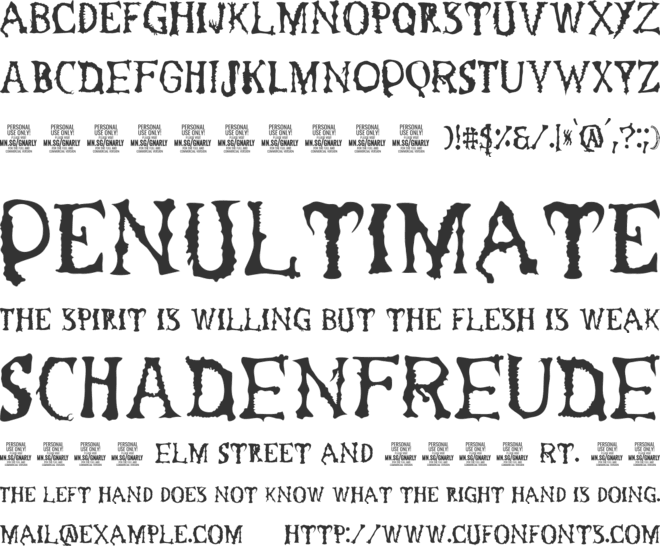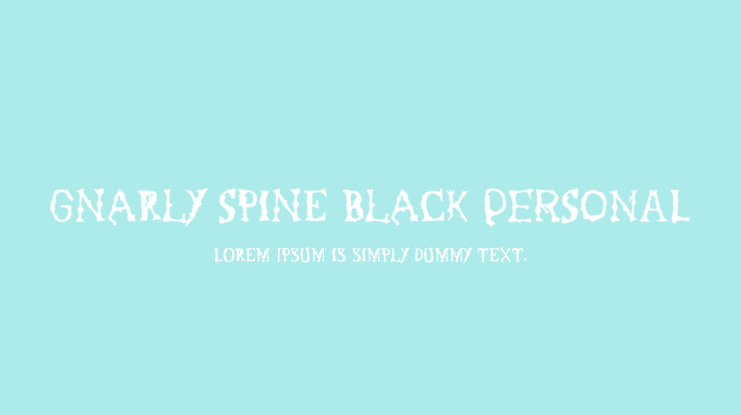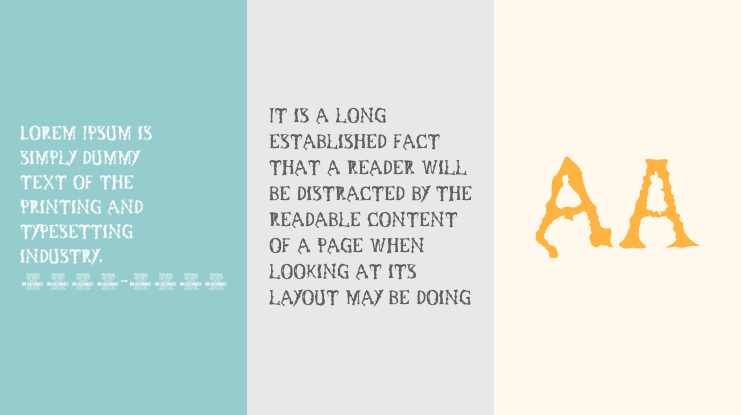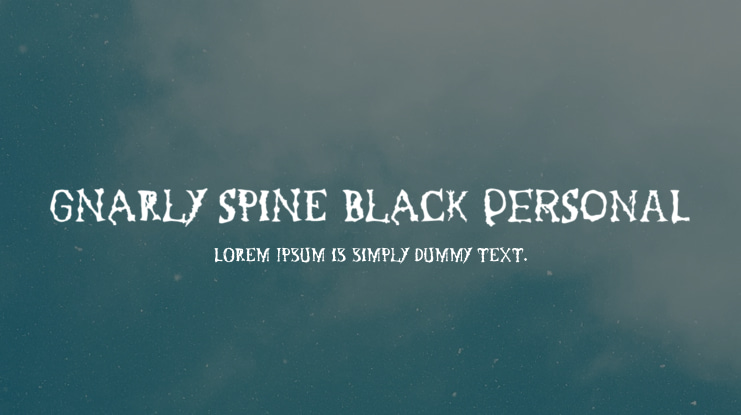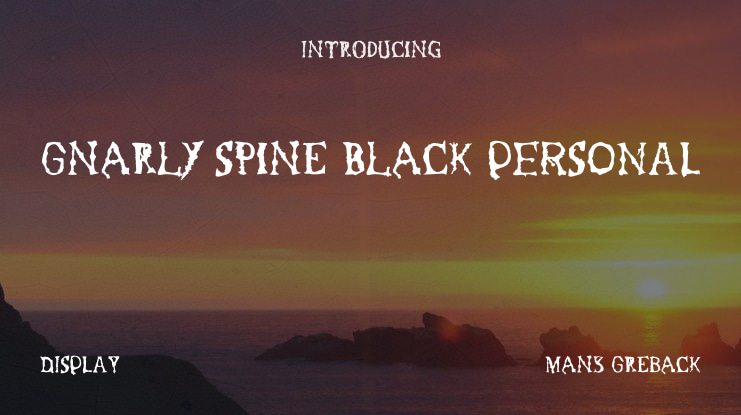
Gnarly Spine Black PERSONAL Font Family
Mans Greback
NOTE: This font is for PERSONAL USE ONLY! To purchase a commercial license, please visit: http://mn.sg/gnarlyGnarly. Spine invokes a sense of foreboding, promising tales of the macabre and the mysterious. Use the currency symbol ¤ to create a skull. For example: haLl¤weEn. Use multiple symbols to create different skulls. For example: ¤¤¤¤¤Darkness¤¤¤¤. (Download required.)